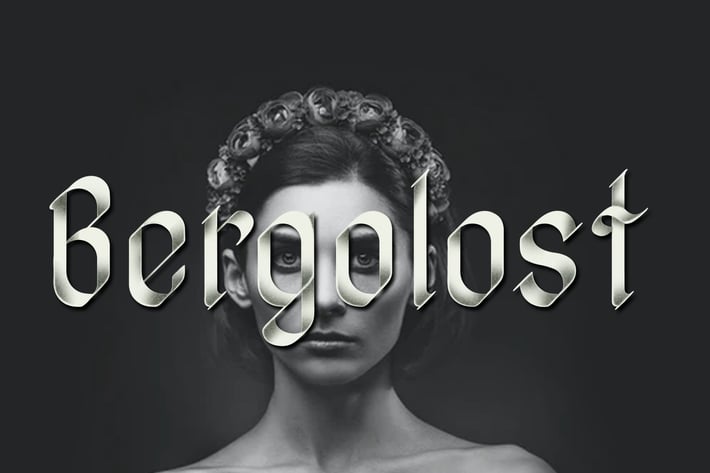
Bergolost Black Letter Typeface
Bergolost
Simply Display Black Letter typeface, inspired by Google font Pirate One. Fit for any Headline needs, especially Tattoo, Rapper, Barber, Garage, Motorcycle, Band, also used for printed design, web font, branding, logo type, and Social media promotion.\
The shape reflecting a masculinity, wildness, also brave look for your designs.
Some Open Type features included, like alternates or stylistic Set, make your design looks authentic as one simply changes from basic character then switch it to activate the feature.